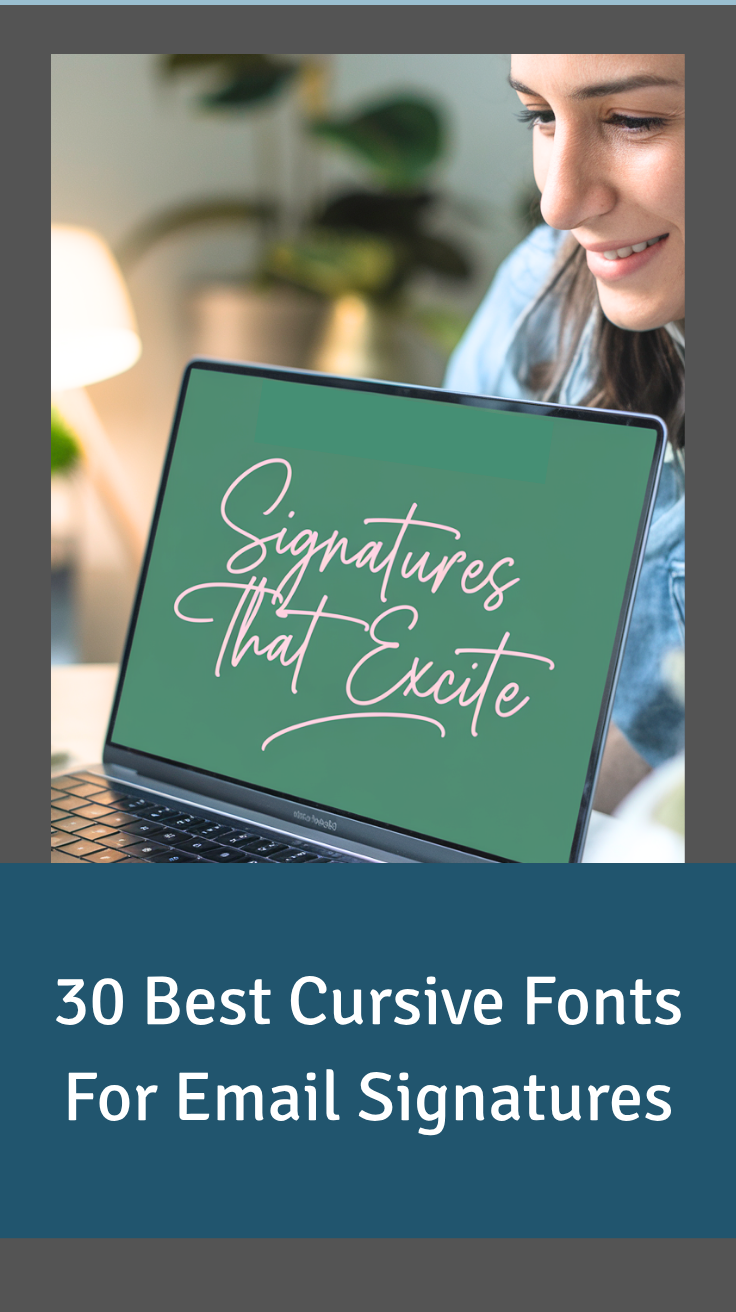
If you’ve ever wondered which cursive font to use in your email signatures, you’ve come to the right place. The correct signature font can transform your emails visually, evoke emotion, and add consistency to your branding.
Email signatures can also add an air of familiarity with your recipients, making them more likely to trust your messaging.
I’ve put together some of the best cursive fonts for email signatures that look like authentic handwriting and match your style of work.
This vetted list of cursive fonts works seamlessly on Outlook, Gmail, Apple Mail, iOS Mail, Yahoo, Samsung Mail, and Thunderbird. No fluff—just fonts that ensure your emails look professional and readable, every time.
Best Cursive Fonts For Email Signatures
1. Charlie Angela
This cursive signature makes it easy to add a sense of formality and authority to your emails without going over the top. It’s classy and timeless with high legibility, making it perfect for both business emails and creative projects alike.
Use it to create consistent branding in your electronic communications and build a sense of trust with your recipients.
2. Talliya
The Talliya signature font is an excellent font to use in your email signature if you want to show off your creativity. It’s a fun and playful script that is also perfect for all types of design projects.
It has a modern feel while conveying a sense of elegance and style. Built with Opentype features, the font is a great example of modern calligraphy that showcases a lot about your professionalism and your brand’s character.
The font comes with multilingual support. That is, it includes glyphs that represent characters in different languages, which means you can use them for virtually any language.
3. Joyfully
This inky hand-drawn script is new, fresh, and ideal for adding more personality to your email signoff. You can also use it for a range of other projects, including prints, quotes, cards, and more.
As far as decorative fonts go, it’s important to choose one that is easy to read in order to avoid cluttering your signature, and this type of penmanship satisfies this requirement.
4. Handestonie
Handestonie is a classy web font to communicate your branding and add a personal touch to your signature logo. It renders well on all devices and email clients.
This means you’ll be able to use it for branding purposes without limiting your creativity in any way.
Like most other cursive fonts, this one has multiple uses. In addition to using it in your emails, it’s also perfect for photography, invitations, logos, and other creative projects that could benefit from handwritten elements.
The font comes with standard and alternate glyphs, which means you can use it for any language.
5. Janelotus
This is an inspiring email signature font that offers a stylish flow to keep your visual identity consistent. The characters are joined together in a way that makes the lettering look natural, a requirement of all great handwritten scripts.
With beautiful swashes and ligatures, this stylistic set of characters has a distinct look that will help to take your email signature to the next level. Just make sure that this particular type of penmanship matches the tone of your work.
The cursive font comes with multilingual support and renders exceptionally well on all browsers and devices.
6. Maya
Maya is a luxury font that is a modern pair of san-serif fonts and script. It’s a beautiful and authentic font that you can use to add a sense of consistency and uniformity to your email signoff.
Compared to many other cursive signature fonts on this list, Maya offers one of the best examples of typographic harmony, making it ideal for all types of design projects, not just email signatures.
You can also use it in your headlines, logos, and other places. The font comes with a full set of uppercase and lowercase characters, as well as numbers, punctuation, and multilingual symbols.
7. Befront
Befront is a unique signature font that is perfect for adding visual interest to your emails. It emphasizes your personal touch making it the ideal choice for anyone who wants to add an air of dramatic appeal to their communication.
The lettering looks like fast-paced, careless handwriting, which helps to make the font appear more personal. When you purchase the font, you also get glyphs and multi-language symbols as part of the set.
This means that you’ll be able to use the font in a variety of other places, such as blogs, labels, book covers, etc.
Final Words
A font is more than a typeface. It can set the tone for your business documents, add a personal touch, or show off your flair for design in more relaxed communications.
Whether you want fonts for casual or professional use, the information in this guide will help you choose the best cursive fonts for your email signatures.